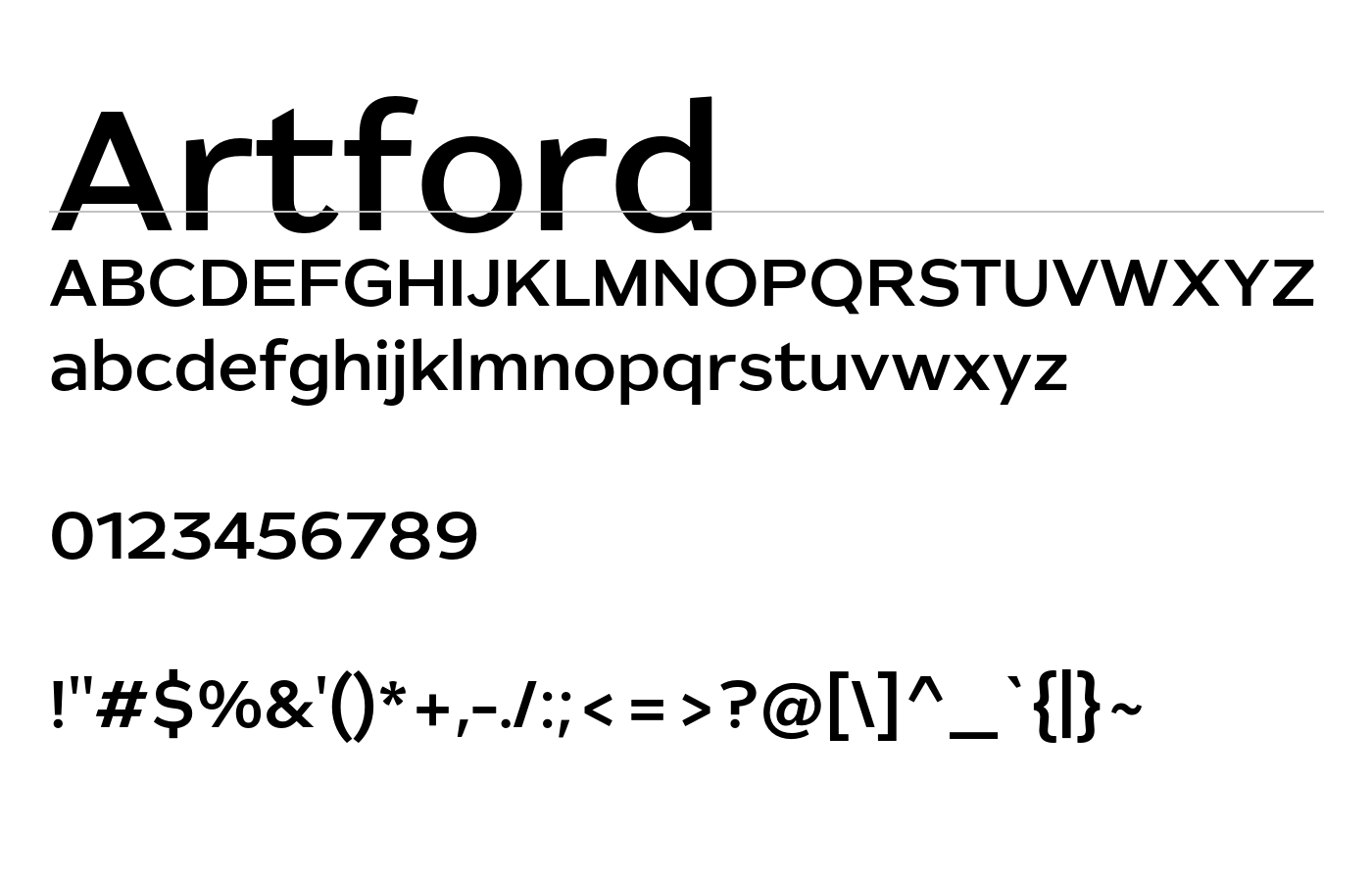
Artford is a clean and modern sans serif font with a balanced and clear design ideal for both digital and print use. Its medium weight and normal width, combined with a slightly tall x-height and minimal stroke contrast, make it highly readable while maintaining a professional and approachable feel. This versatile font works well in branding, editorial designs, websites, and headlines where clarity and contemporary style are essential.
Artford Font
About Artford Font
| Font family | Artford Font |
| Designer | Jan Tonellato |